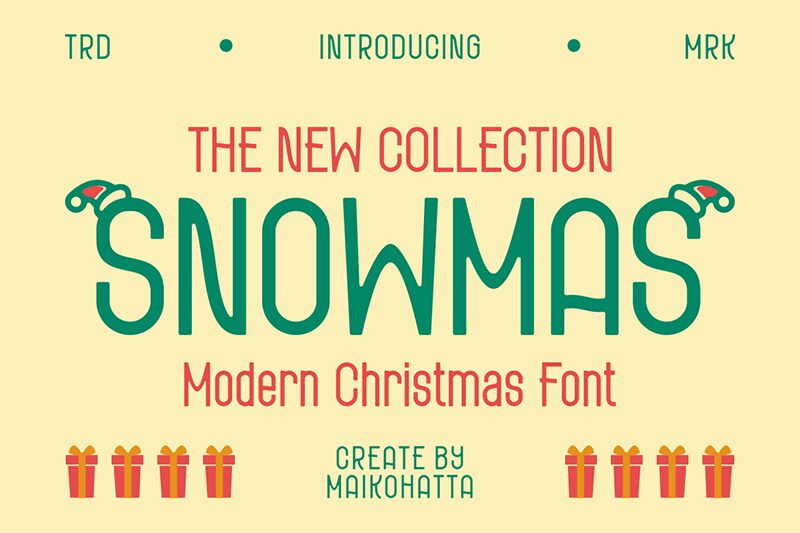
Snowmas font family by Gilang Ternadho is a free holiday font with a cheerful and vibrant flair. The whimsical letter design in two font styles grabs attention with their vivid and engaging style that is suitable for various informal projects. Decorative elements are also featured so that users can have a more comprehensive design experience.
Use Snowmas for Christmas, New Year, or other holiday cards. The font family can also be featured in posters, flyers, brochures, apparel designs, product packaging, labels, crafting projects, store signage, and blog/website designs.